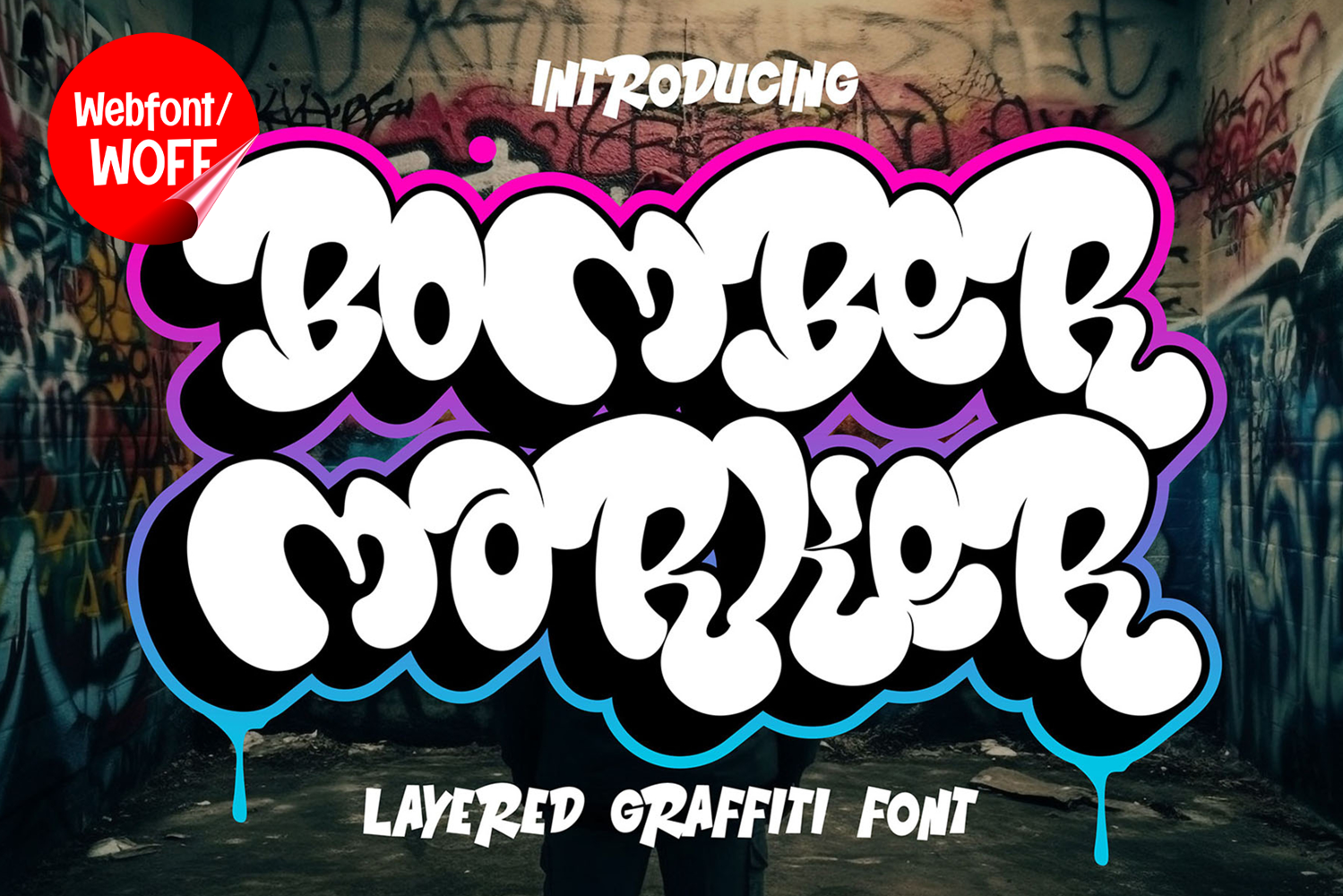
Bomber Marker | Wild Throw Up Graffiti Webfont
Bomber Marker is a wild throw up graffiti webfont designed to capture the raw energy and authentic spirit of street graffiti culture in modern website design. Inspired by classic throw-up lettering, marker tags, and underground urban art, this font features bold bubble-inspired shapes and aggressive flowing forms that create a strong and rebellious visual identity. It is an excellent choice for projects that aim to deliver edgy street aesthetics with high visual impact.
Bomber Marker includes a complete set of uppercase characters designed with wild throw-up graffiti style. The letterforms feature exaggerated curves, dynamic movement, and bold marker-inspired strokes that create an energetic and expressive appearance. These characteristics make it ideal for headlines, banners, hero sections, event promotions, and featured content where strong urban visuals are needed.
In addition to letters, the font includes numbers and punctuation, allowing flexible usage across various parts of a website. It works well for streetwear branding, music platforms, gaming websites, skate culture projects, and creative portfolios. Each character maintains a consistent graffiti throw-up style, ensuring a cohesive and unified visual identity throughout the design.
With multilingual support, Bomber Marker includes a wide range of accented characters, making it suitable for international websites and global audiences. This ensures content remains clear and visually consistent across different languages while preserving the authentic graffiti aesthetic.
The wild throw-up graffiti style of Bomber Marker makes it especially suitable for urban-themed websites, hip hop branding, esports graphics, entertainment campaigns, and youth-focused digital projects. Its bold and chaotic appearance creates a strong street-art atmosphere that helps websites stand out in visually competitive environments. The marker-inspired forms add movement, energy, and raw urban character.
Despite its expressive and highly stylized appearance, Bomber Marker is designed with readability in mind. The spacing and proportions are carefully balanced to ensure clarity, particularly in display sizes. This allows designers to use the font effectively for impactful headings and short content without sacrificing usability.
Bomber Marker is a webfont that combines graffiti throw-up aesthetics with modern digital performance. Its bold forms, marker-inspired strokes, and wild urban character create a distinctive typographic presence that enhances website design. For projects that require a rebellious, energetic, and visually engaging graffiti font, Bomber Marker offers a strong and versatile solution.